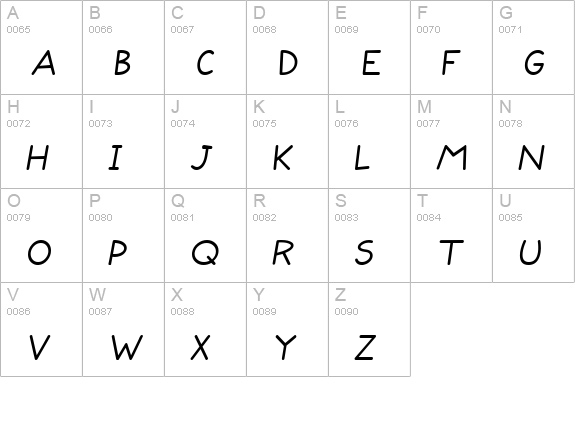
CK Neat Print Font Details
Introducing CK Neat Print font - a modern and sleek typeface designed to bring a touch of elegance to your projects. With its clean lines and sophisticated appearance, CK Neat Print font is perfect for adding a professional and polished look to any design. Whether you're creating invitations, logos, or branding materials, this font will help you make a lasting impression. What's even better is that CK Neat Print font is available for free! That's right, you can download this versatile font at FontsMarket.com without any cost. Don't miss out on the opportunity to enhance your creations with this stylish and versatile typeface. Download CK Neat Print font today and elevate your design projects to the next level.